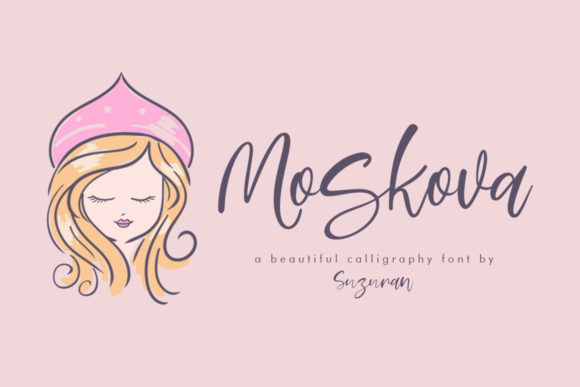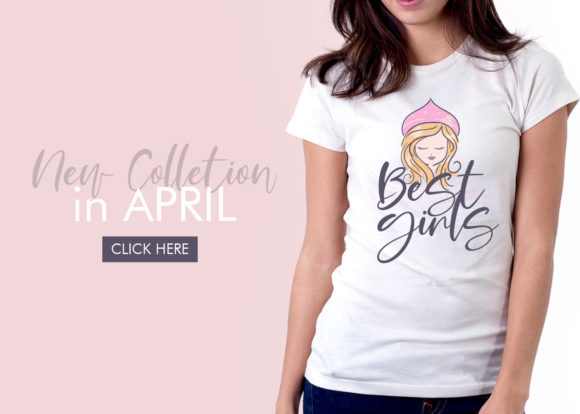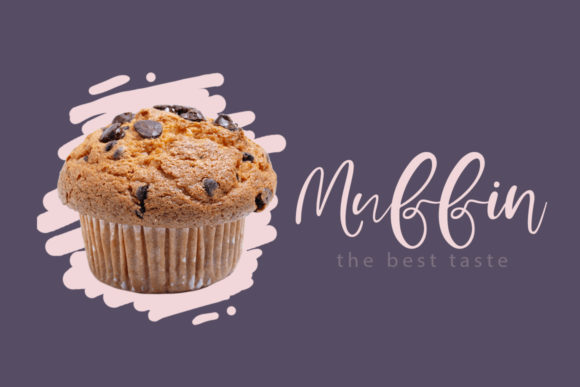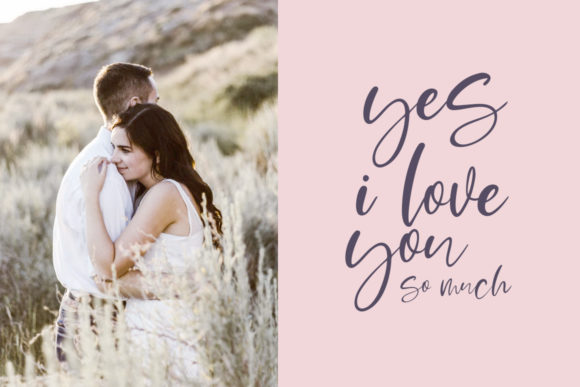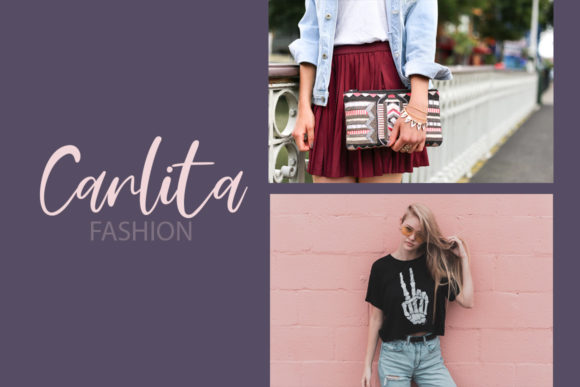
About Moskova Duo Font
The Moskova is a fresh and unique script font. It has a fun and elegant feel and will turn any design project into a stand out, especially when paired up with the bold Night in Kansas font, which is also included in this download!